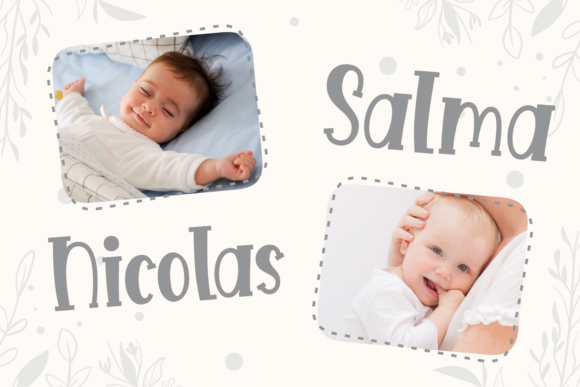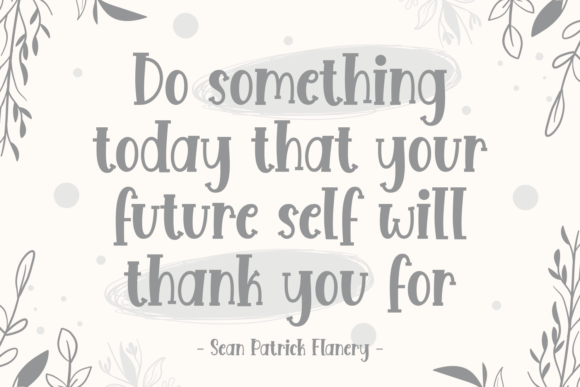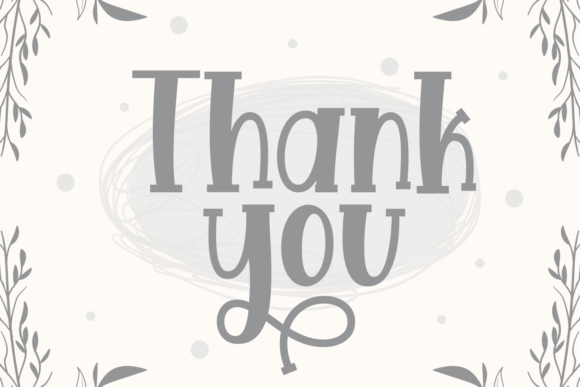
Introduction to Rinjami Font
Have you ever stared at a blank canvas, feeling stuck and unsure of how to bring your creative vision to life? That’s exactly where the perfect design resource comes in – a font that can elevate your ideas and make them shine. For designers looking to add a touch of boldness and personality to their work, the Rinjami Font is an exciting discovery.
As a free download, this high-quality font offers a transparent background that makes it easy to customize and integrate into your creative project. With its PUA encoded glyphs and swashes, you can access a wide range of design possibilities and create truly spectacular designs. Whether you’re working on a logo, poster, or social media graphic, the Rinjami Font is a valuable addition to any designer’s toolkit.
Key Features of Rinjami Font
- Unique, modern design that adds a touch of elegance to any project
- Perfect for use in digital and print projects, such as logos, typography, and more
Honest Review: Rinjami Font
I recently stumbled upon the Rinjami Font, and I must say, it’s a great addition to any design resource collection. As a designer, I’m always on the lookout for high-quality fonts that can elevate a creative project.
The Rinjami Font is a beautiful, modern script font that’s perfect for headings and titles. It’s available for free download, which is a huge plus. The font comes in a transparent background, making it easy to place over any image or background.
- High-quality font design that’s perfect for creative projects
- Available for free download, making it a great resource for designers
- Modern script font style that’s perfect for headings and titles
- ⚠️ Limited character set, which may not be suitable for long-form content
- ⚠️ May not be as versatile as other font styles, but perfect for specific creative projects
Overall, I’m impressed with the Rinjami Font. It’s a great addition to any design resource collection, and I’d highly recommend it for creative projects that require a modern script font style.
How to Use Rinjami Font
Design Resource Essentials
The Rinjami Font is a high-quality design resource perfect for any creative project. With its unique style and transparent background, it’s ideal for designers looking for a versatile font to add a touch of elegance to their work.
Tips for Getting the Most Out of Rinjami Font
Experiment with different font sizes and styles to find the perfect combination for your design. Use the Rinjami Font in conjunction with other design elements to create a cohesive look.
The Rinjami Font is perfect for a variety of design projects, including:
- Presentations and slideshows
- Graphic design and branding projects
Dancing Script is a high-quality, cursive font that is perfect for designers working on a design resource that requires a touch of sophistication and elegance. It features a transparent background and is ideal for use in creative projects where a more dynamic and playful look is required. Dancing Script is a great alternative to Rinjami Font for designers looking for a more modern and stylish look.